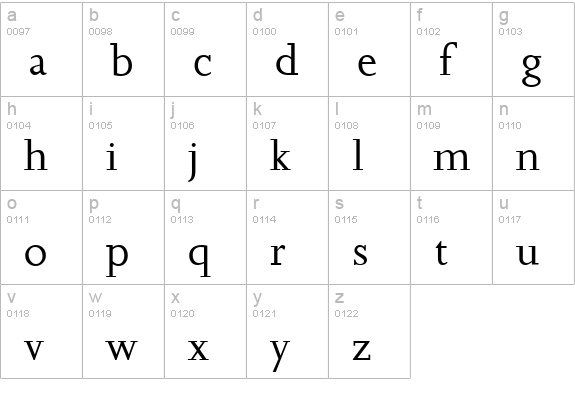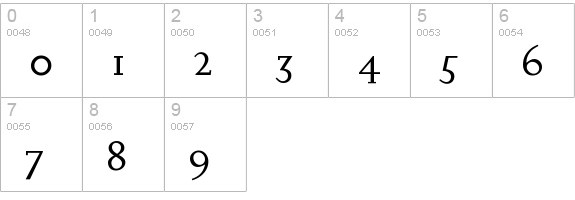
Josie-Light-Regular Font Details
Josie-Light-Regular is a refined, elegant variant in the Josie typeface family \xE2\x80\x94 well suited to elegant body text, refined sub-headings, and luxury branding.
Josie-Light-Regular is a charming and elegant font that exudes a sense of sophistication and modernity. Its sleek lines and gentle curves make it perfect for a wide range of design projects, from branding to editorial design. This font strikes the perfect balance between professionalism and creativity, making it a versatile choice for any designer looking to make a statement. What sets Josie-Light-Regular apart is not just its aesthetic appeal, but also the fact that it is available for free download at FontsMarket.com. This means that you can easily access this beautiful font and incorporate it into your projects without any cost. Whether you're working on a personal project or a commercial venture, Josie-Light-Regular is a fantastic option that won't break the bank. Download it today and elevate your designs with this stunning typeface.